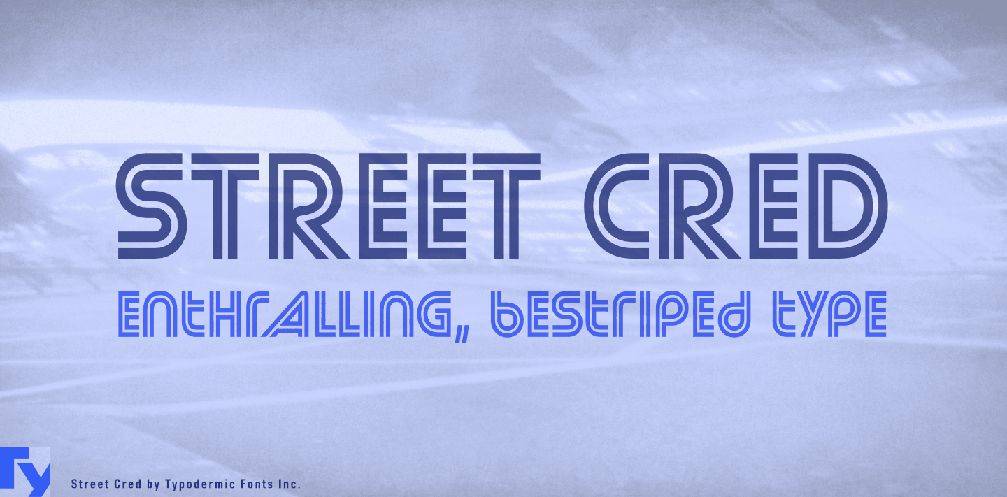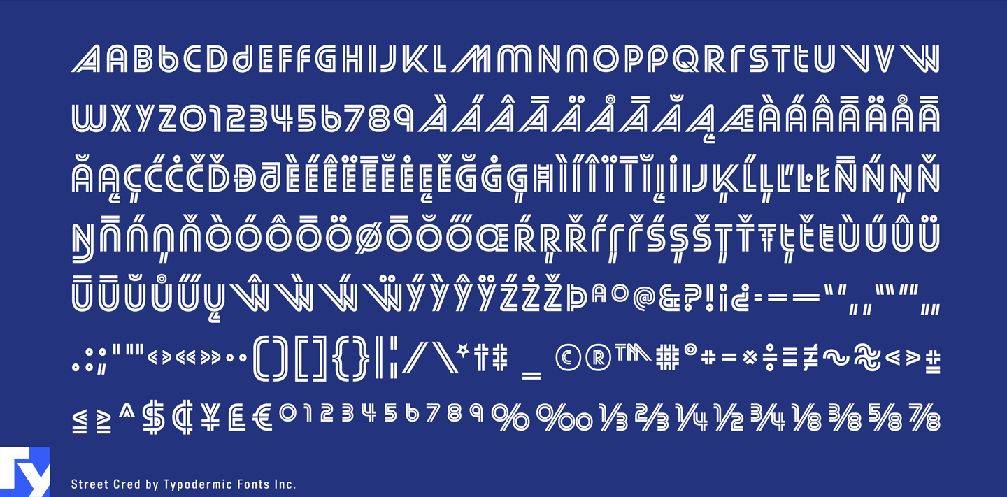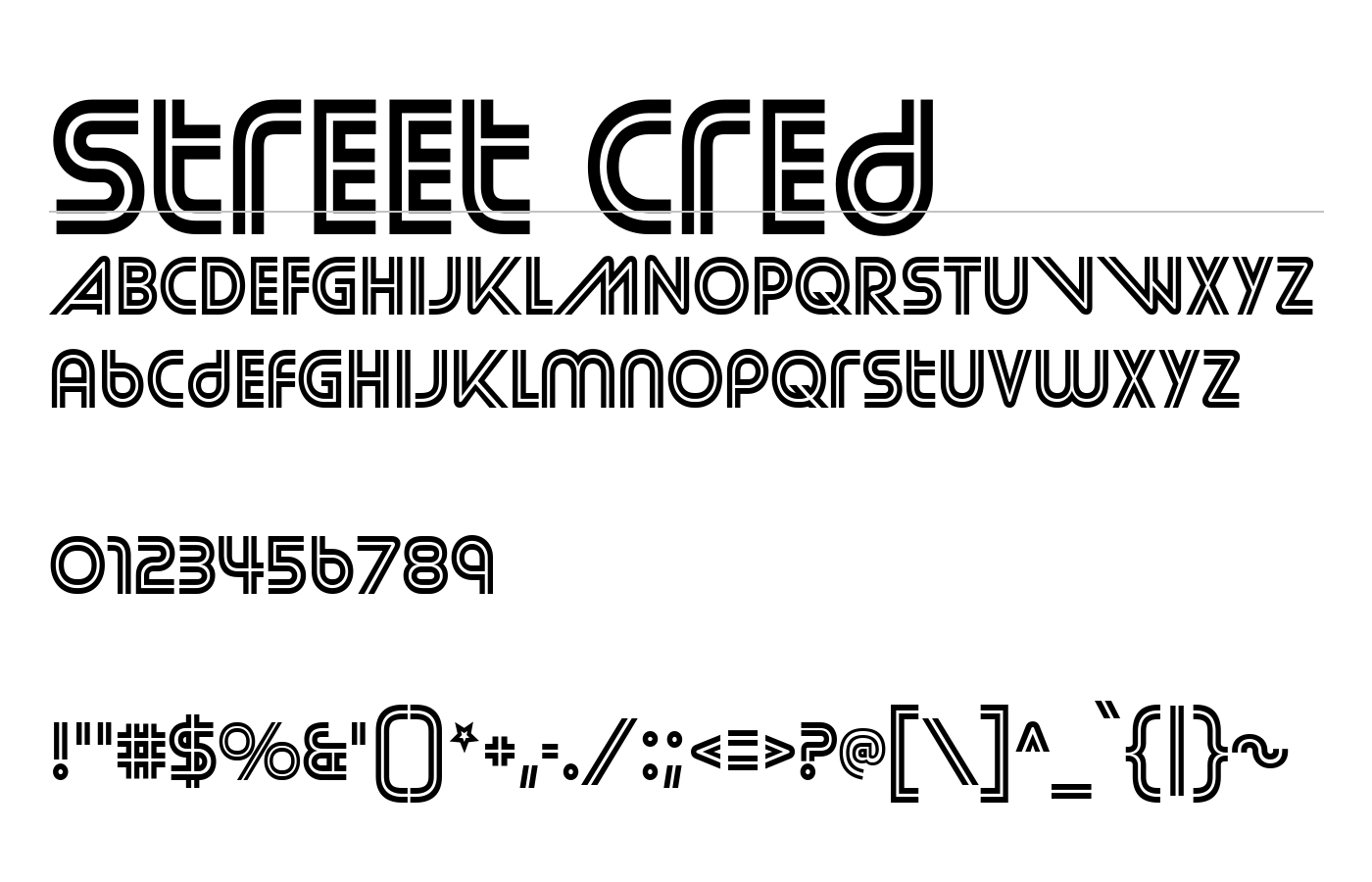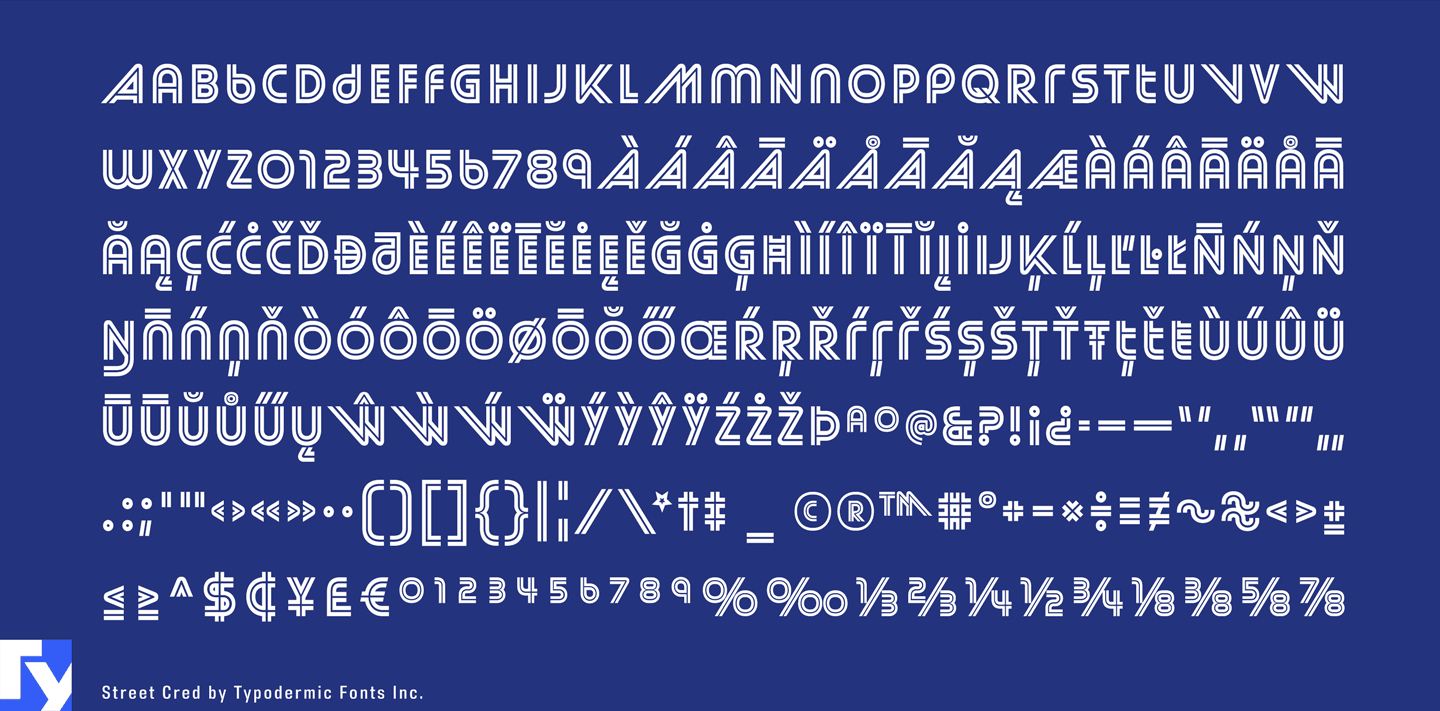
Street Cred is a bold, modern sans serif font characterized by its geometric and layered line structures, giving it a distinctive, futuristic look. With its high x-height and clean, sharp edges, this typeface adds a sense of urban flair and dynamic energy, making it perfect for eye-catching headlines, logos, and branding that seek a stylish, contemporary vibe. Its unique double-line styling and quirky letter shapes create a playful yet confident personality ideal for fashion, tech, or creative industries.
Street Cred
| Font family | Street Cred |
| Designer | Ray Larabie |